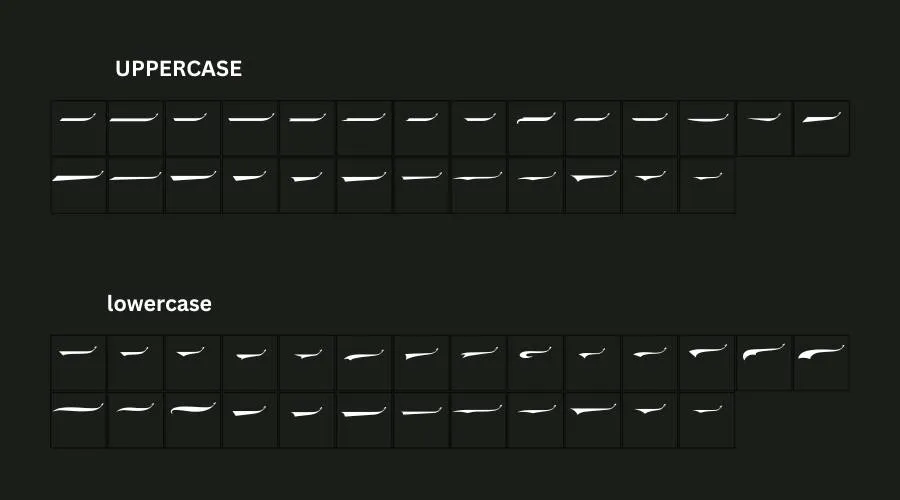
About LHF Pilsner Swashes Font
LHF Pilsner Swashes is a dingbats Font designed by Tom Kennedy. It is an ingenious font with all the necessary elements to make it truly stand out and showcase its unique character. The font has a great range of swashes, elegant curves, and swirls, making it the perfect choice for logos, titles, and other design projects.
The organic and hand-crafted feel of the font makes it perfect for creating designs that are both interesting and artistic. The font also features alternate characters with rounded terminals and extra lines for a more natural look. Plus, the font includes over 200 glyphs, which allows for a wide range of possibilities when putting together unique typography.